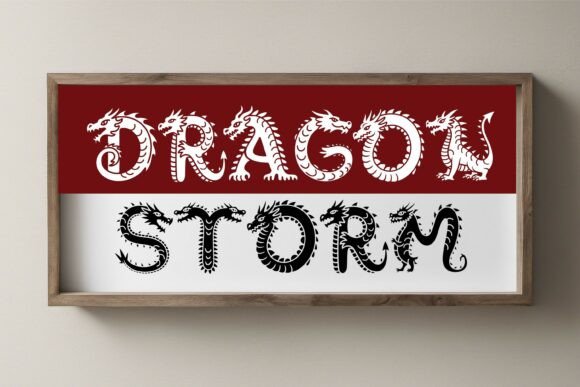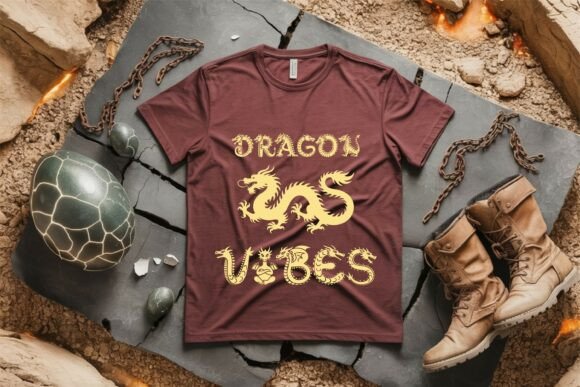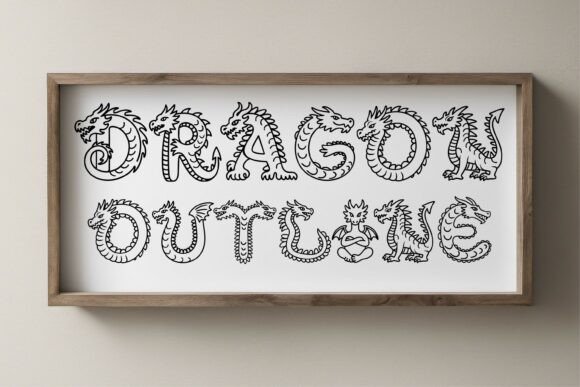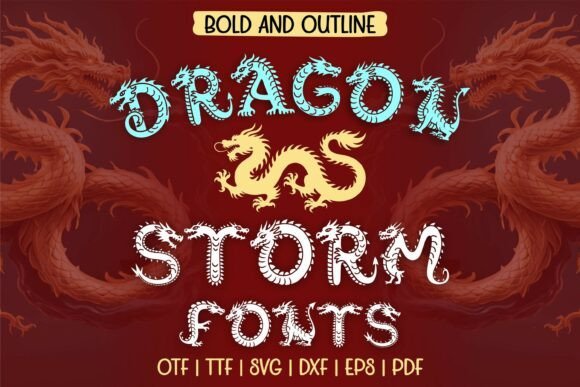
Introduction to Dragon Storm Font
The Dragon Storm Font is a bold and fantasy-inspired typeface that captures the power, mystery, and elegance of dragons.
Designed with unique dragon-themed details, this display font comes in two striking styles – Bold and Outline – giving you endless ways to add a mythical touch to your creative projects Perfect for titles, posters, t-shirts, party invitations, and digital crafting, this dragon alphabet font transforms ordinary text into legendary artwork.